10 Best Funny Fonts to Use on Any of Your Design Projects
Best Funny Fonts
Some designers might apply minimalist fonts to create a stunning design project through simplicity. However, the use of minimalist fonts may not always work in all design projects. For that, you can start thinking about choosing a funny font, a font that can bring a fun and playful vibe to your design.
Going for funny font means that you are taking a smarter and more creative approach to your design. This type of font tends to have an attractiveness that draws the attention of your audience. In addition, these are the perfect fonts for businesses and websites that implement a light-hearted and funny marketing style.
In this post, we have summarized the 10 best free funny fonts that you can get at the best place. Interested? If so, keep reading!
Top 10 Best Funny Fonts Free Download
Below are 10 lists of the best free funny fonts that we compiled. All of them will bring fun and playfulness to any design project you are working on. So, check them out!
1. Funny & Cute
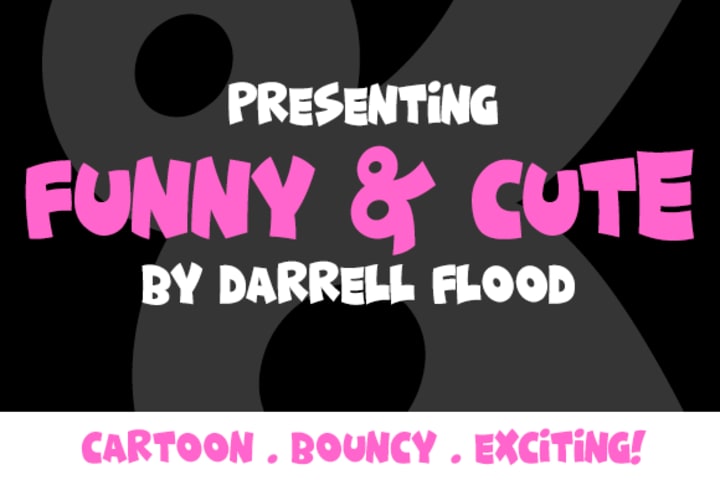
The first one is Funny & Cute, one of the funny fonts that comes with a fun yet bold outlook. This font is suitable to use for logo and website designs with a courageous feminine style.
Whoever you are who has an advertising poster design project or website about women’s perfume, facial soap, adventure, and others, this is the perfect font for you to choose.
2. Kuattro
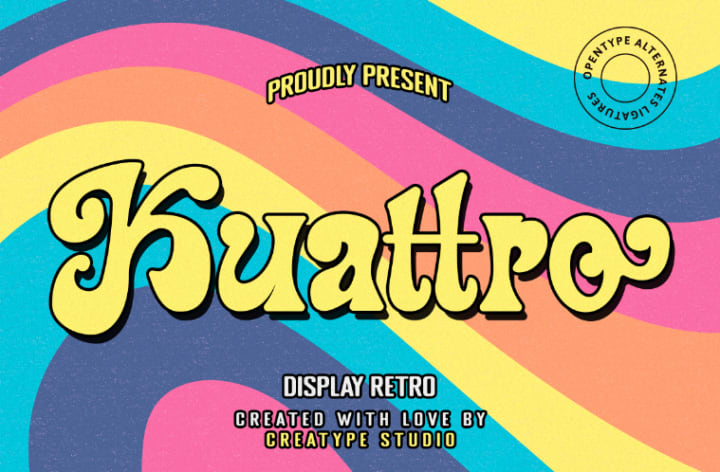
Kuattro is a fun retro typography with a vintage feel. This font is capable of bringing out all the pop colors that appear magnificent. Moreover, it is a great font for anyone who wants to bring retro vibes in a fun way to their design projects.
3. Jumper
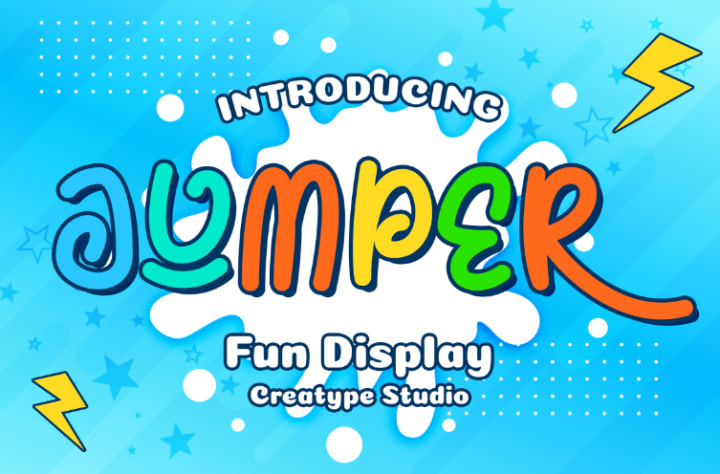
Jumper, the fun display, is a font that gives an upbeat and fun vibe. Bring fun to your event posters with the various typefaces in this Jumper. So not only can you use it to grab people’s attention, but also the font is perfect for any occasion.
4. Salatiga
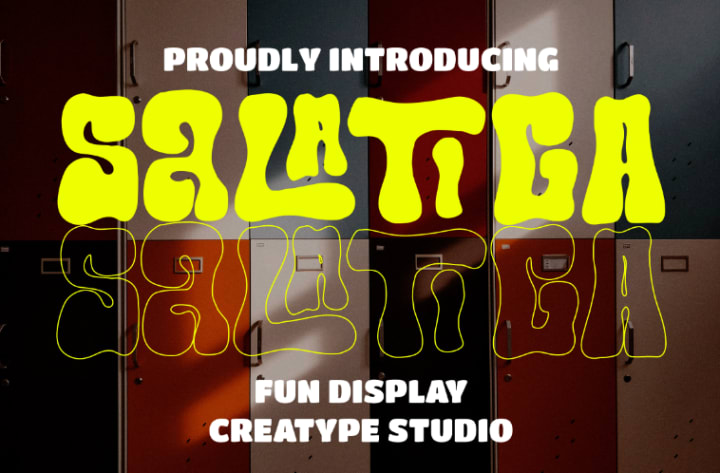
The next level fun display font introduces Salatiga. A large and attractive display that can emphasize the fun side of your design. Salatiga is the perfect typeface for those who want to introduce a modern street style while also portraying fun in their design projects.
5. Hancoke
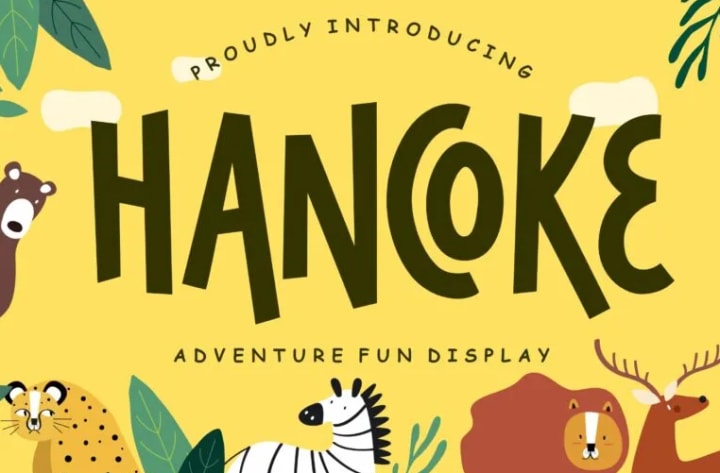
Hancoke is an adventure fun display font perfect for kids and kindergarten events and posters. It may grab many children’s attention. Thus, let’s showcase the fun of children’s events with the fun font styles found in Hancoke.
6. Bedtime
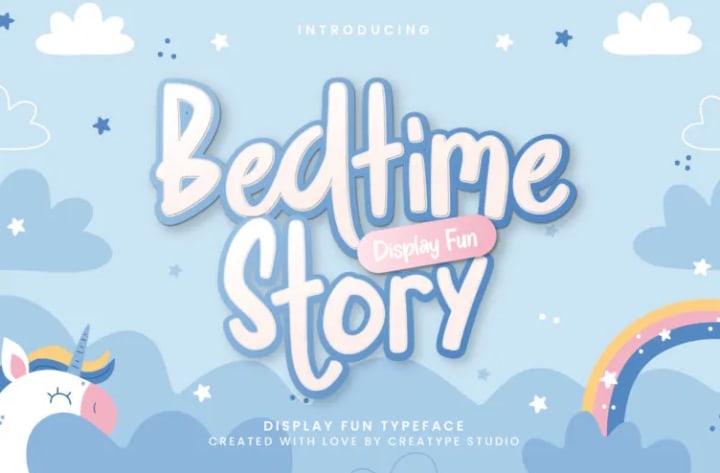
The next recommendation is the Bedtime Story font. This font has a cute and fun appearance. Moreover, there are 32 ligatures and alternates that can make your project more interesting, of course.
7. Hattrick
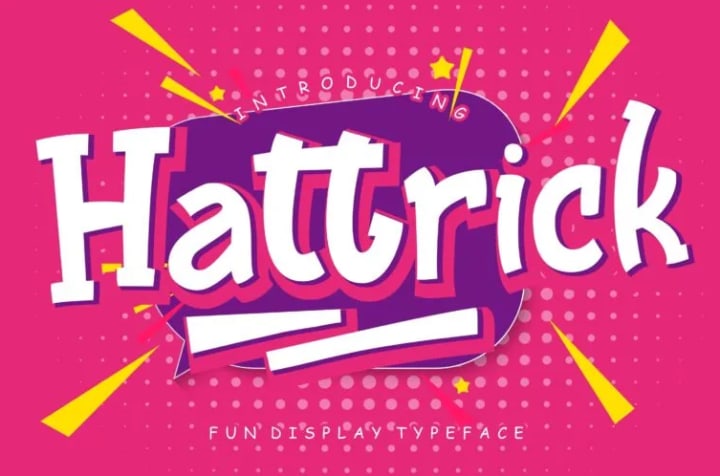
Another font that is perfect for kindergarten and children’s events is Hattrick. It promotes a funny display font. You may combine it with any childish elements. Therefore, with its fun style, your design can truly show the fun of the event.
8. Brownies
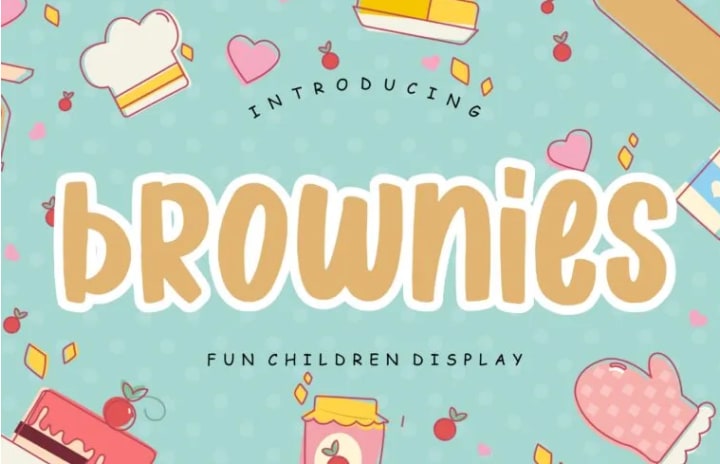
Brownies is a funny fluffy brush theme font suitable for children’s events and birthday parties. Just like its name, this type of funny font is also perfect for the fun cooking event, poster designs, and cookie recipe books.
9. Mabook
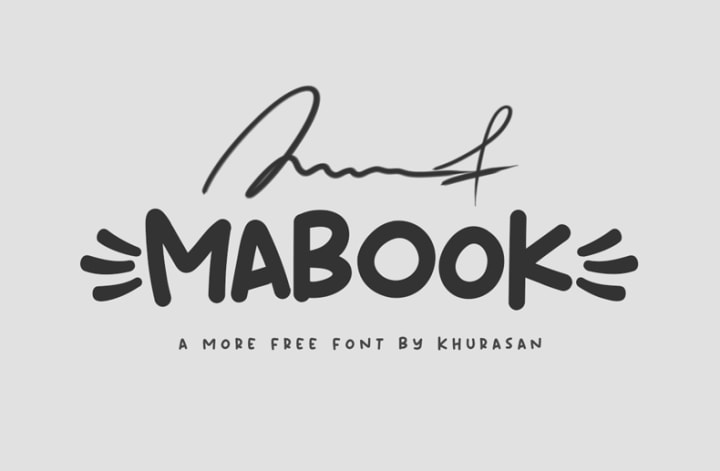
Are you ready for the next recommendation? Then, showcase your design projects with the funny style of Mabook font. It is the perfect font for fun event posters and various design projects you are taking on.
10. Grozel
The last font type is Grozel, a funny font that features a fun, bold style. You can use this font for various event posters, branding, and any of your other design projects. So if you are looking for recommendations for your design, look no further than Grozel!
Have You Found Your Perfect Free Funny Fonts?
Not all fonts can fit well in various designs. When you need a font that can show the fun of your design, the funny font will be perfect for you. Moreover, you can find many choices on the Internet.